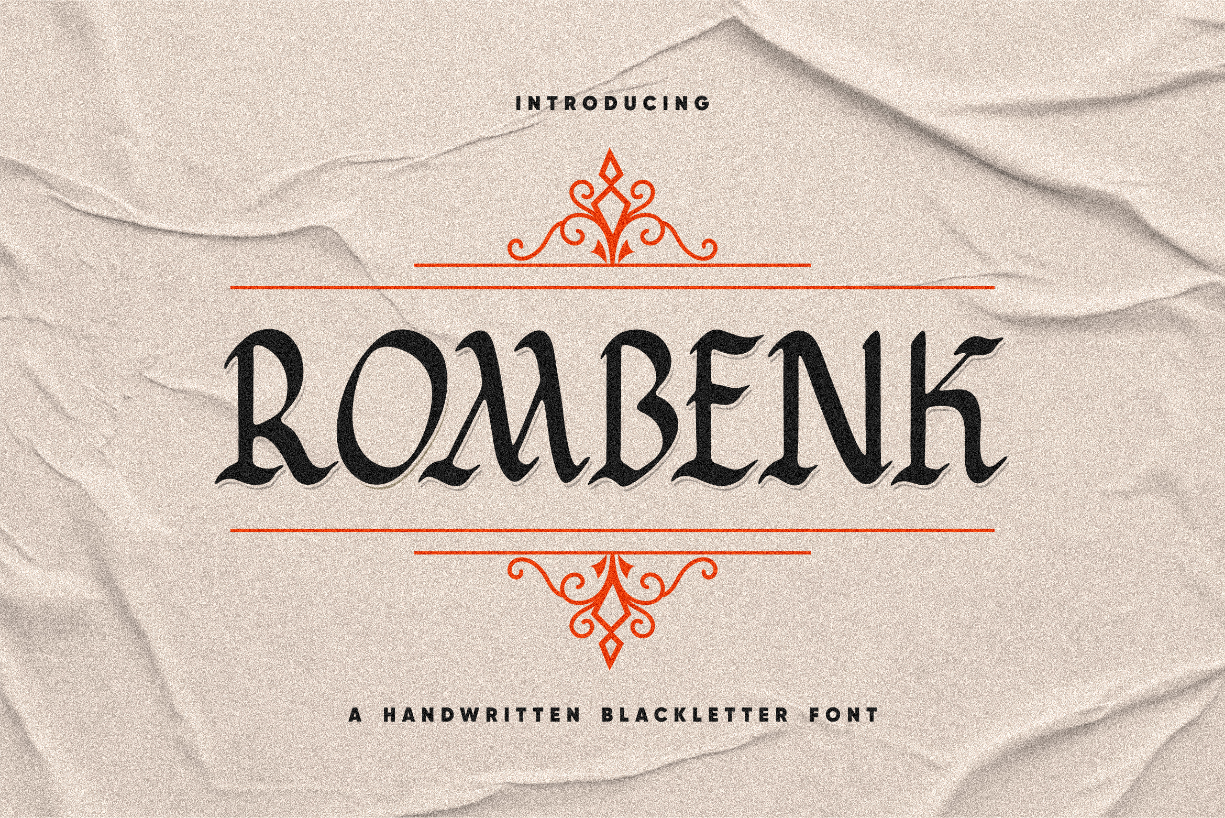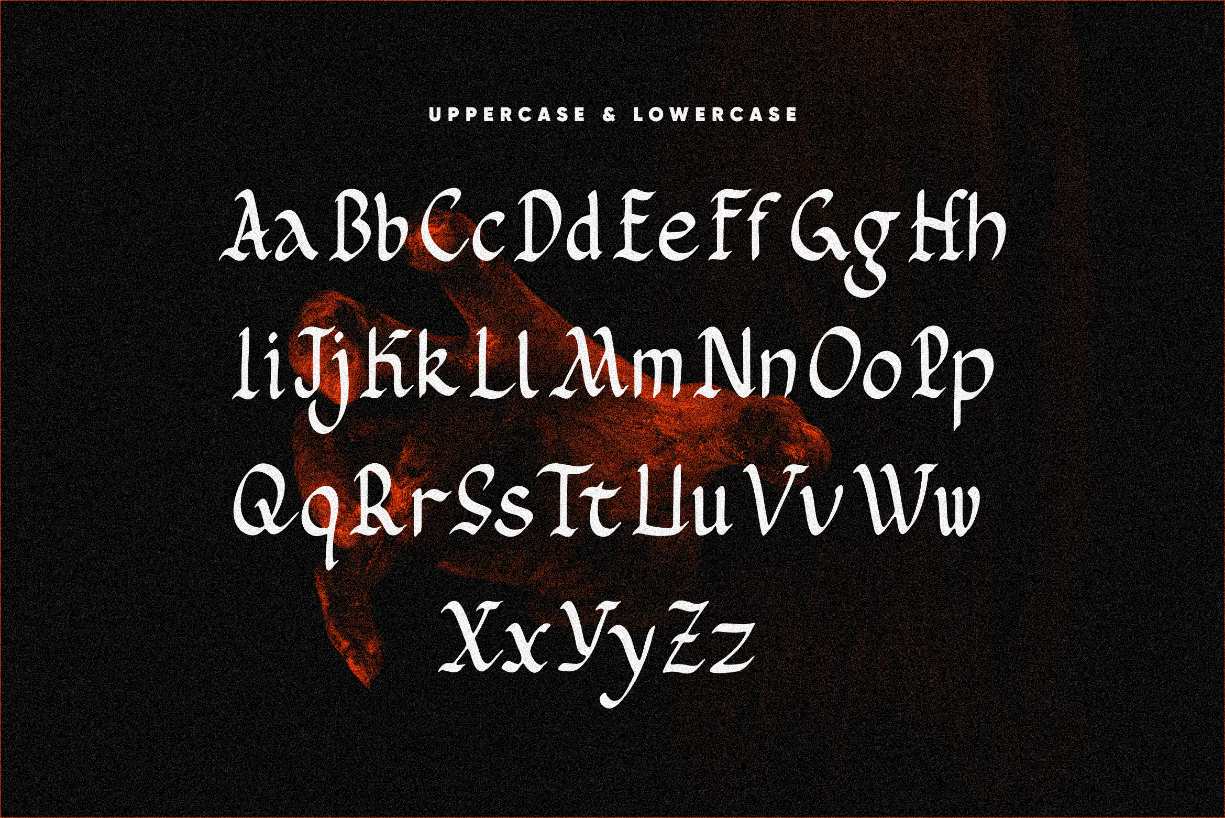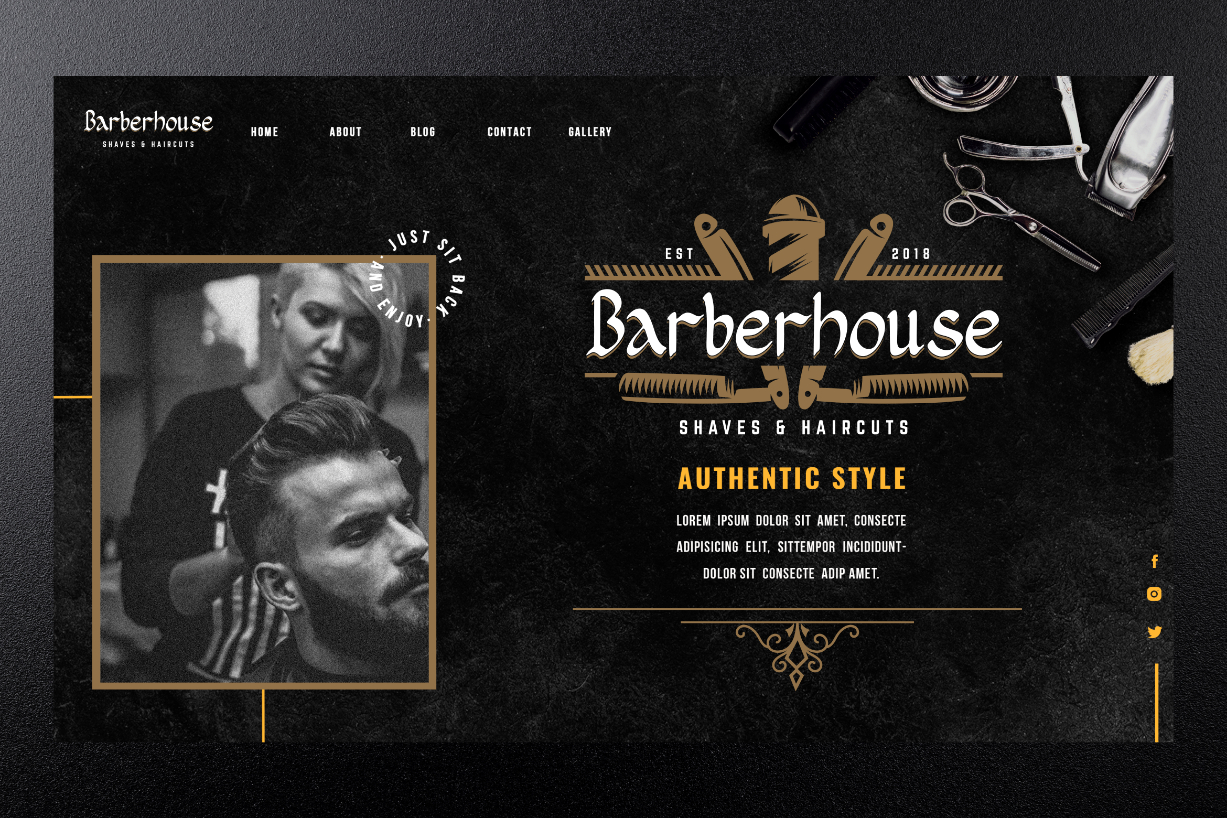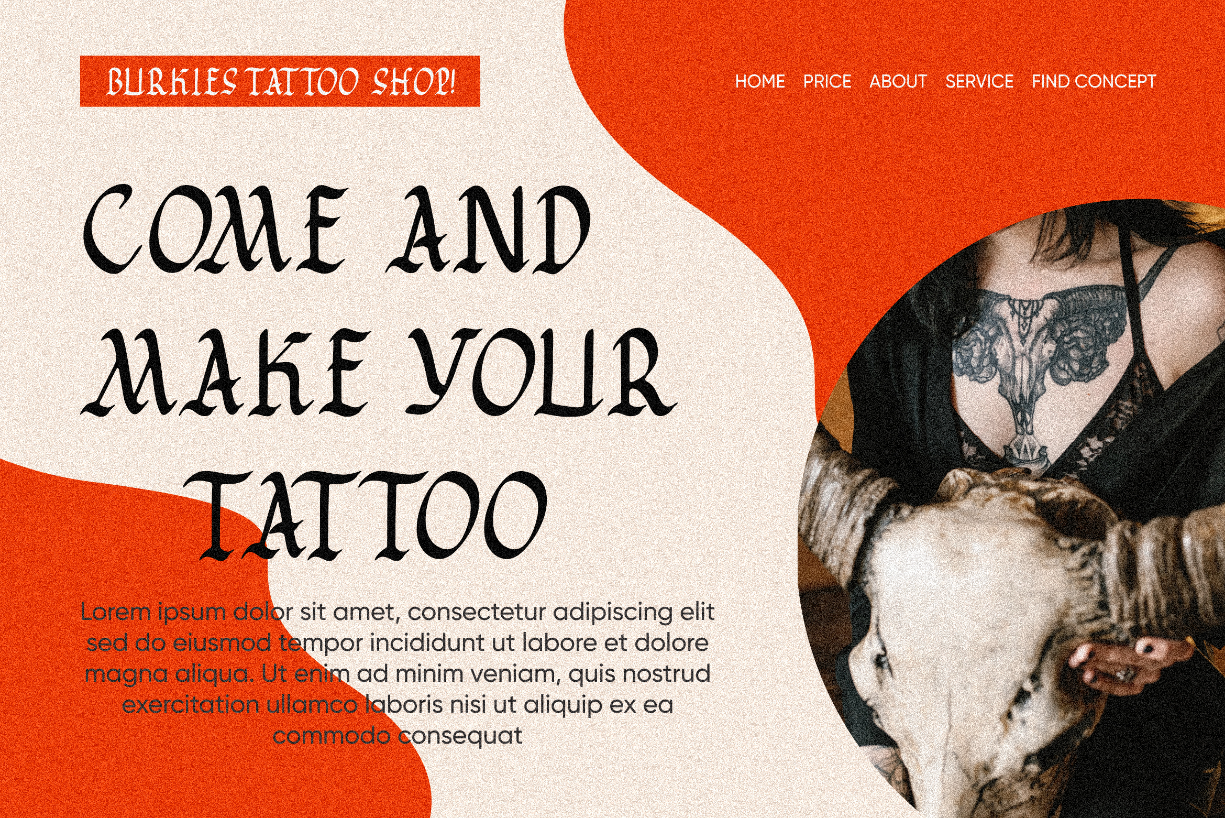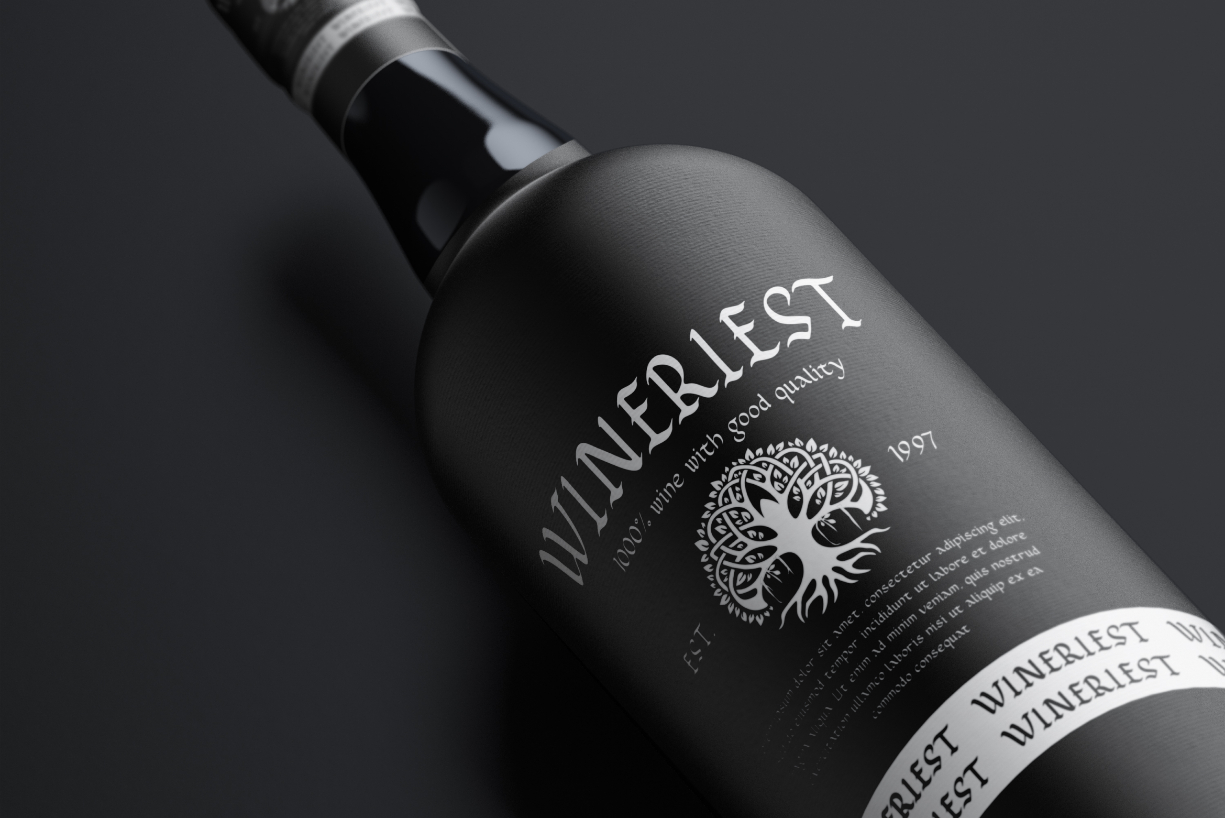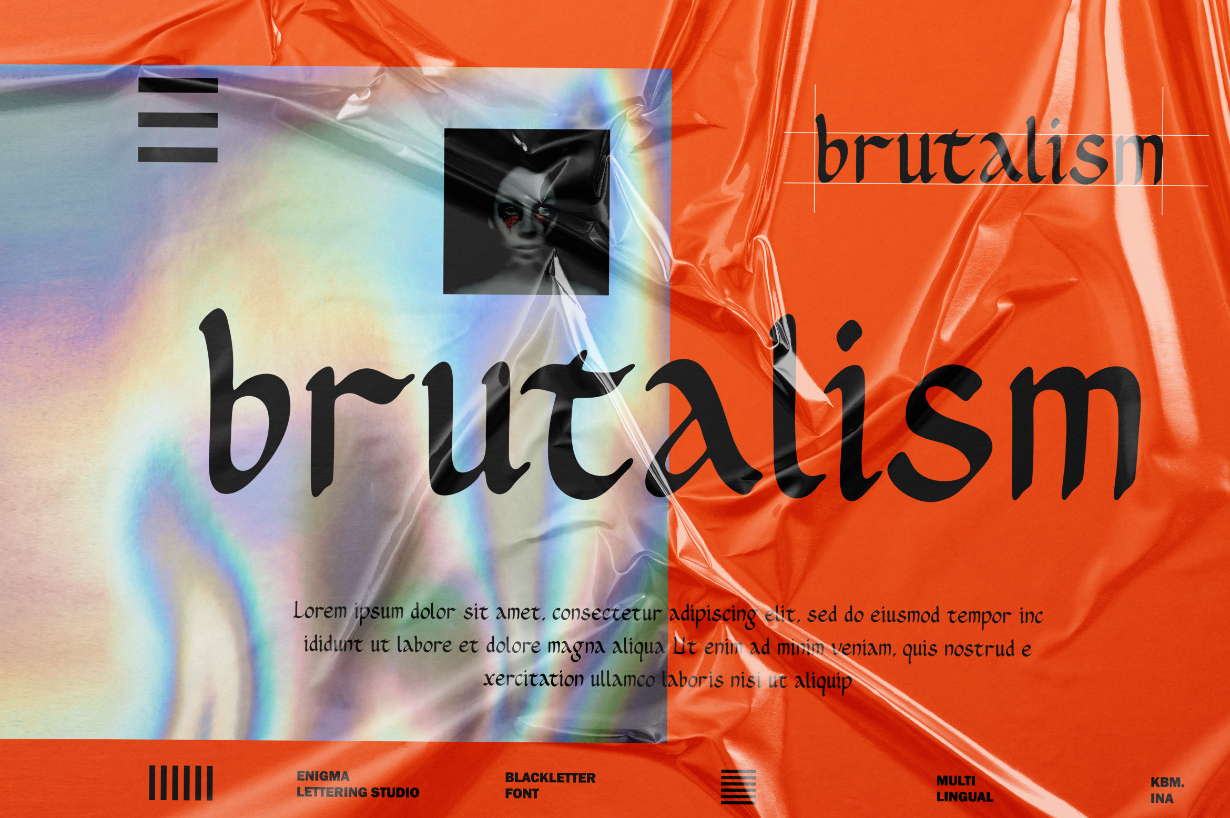
Rombenk Font
About Rombenk Font
Rombenk is a highly detailed and assertive blackletter font. No matter the topic, this font will be an incredibly asset to your fonts’ library, as it has the potential to elevate any creation.